Today we're launching a collection of over 400+ fonts that are completely free to use for any type of project, including commercial applications. You can browse the full collection here, test out any of the fonts online, and directly download and use any of the TTF files for your work.
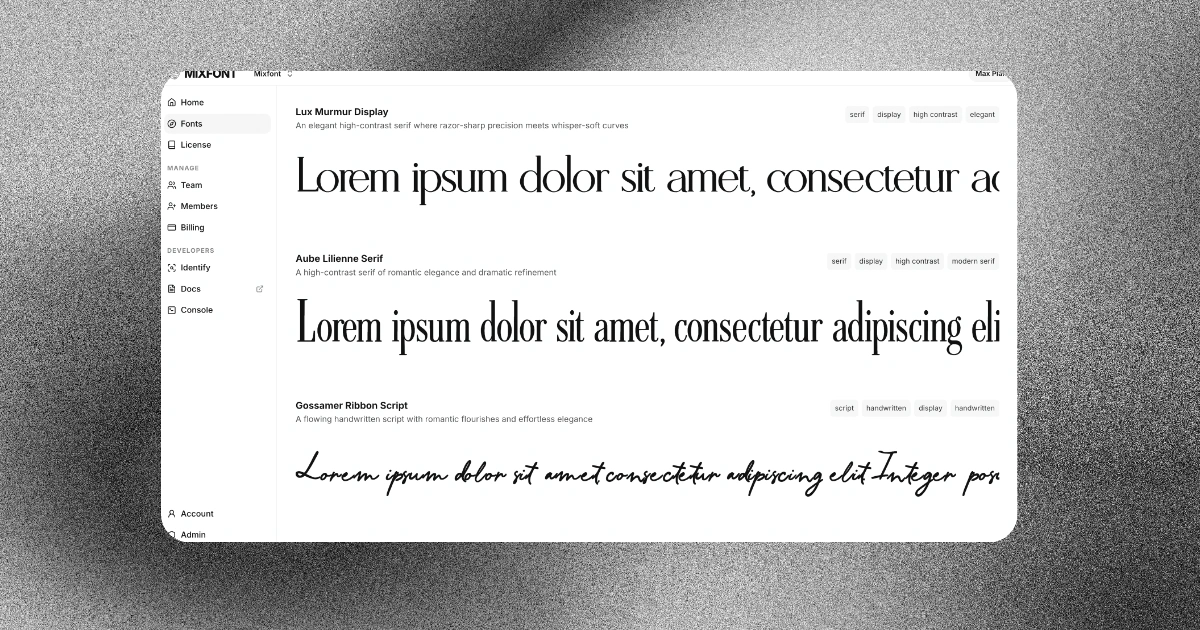
Each font in this collection is completely novel and was generated by users of Mixfont, who used our font generation model to create and publish their own custom fonts. We're now publishing a set of these fonts for anyone to use for free.
About the collection
The collection contains a wide variety of fonts in different styles, including serif, sans-serif, display, and more. Many of them are designed to be bold and useful for headlines, posters, and other types of display use cases.
Here are some of my personal favorites:
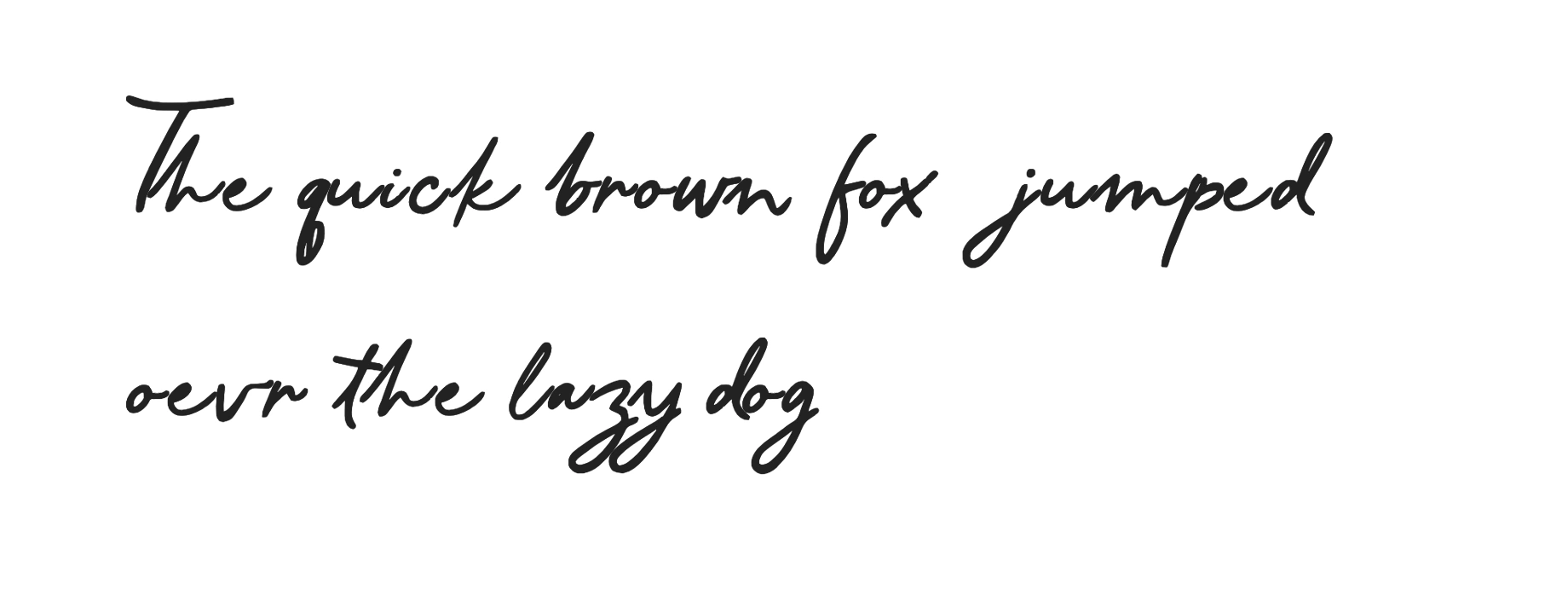
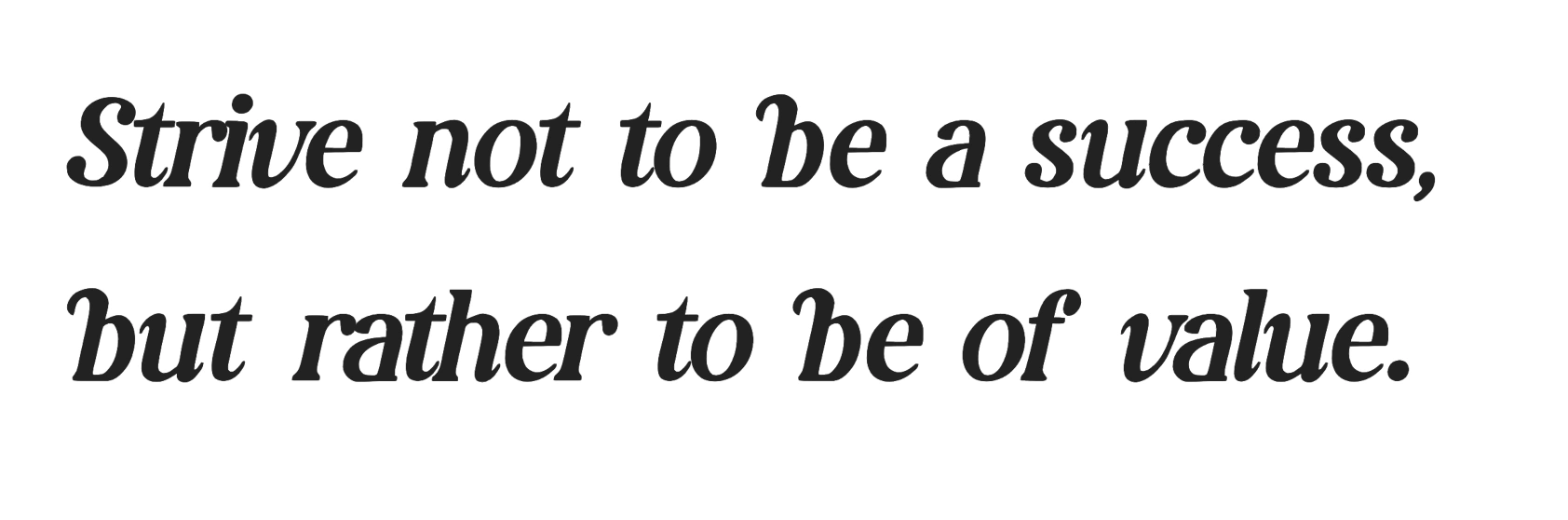
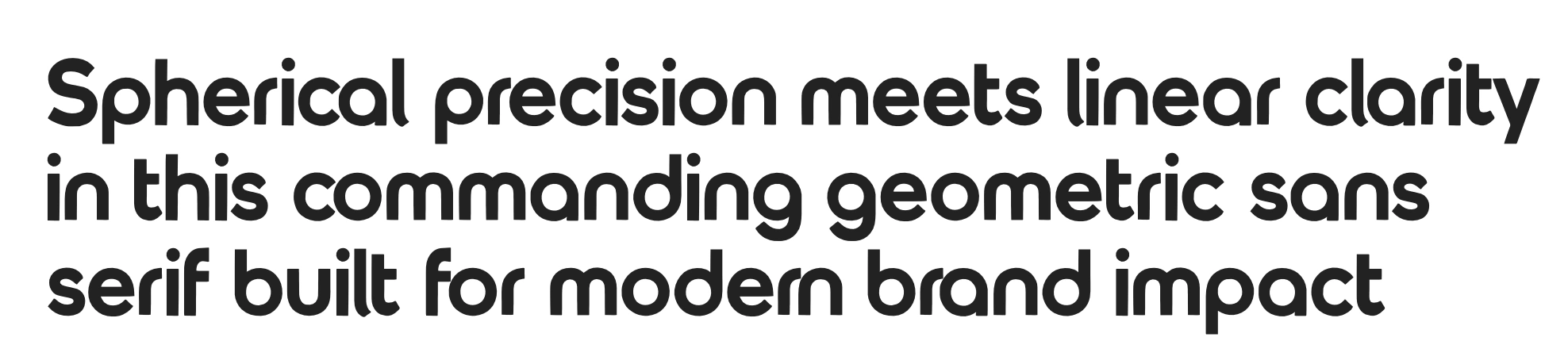
There's a lot of variety in the collection, so you should be able to find something that fits any type of project. And in the case that the results aren't perfect, you can always use Mixfont's AI font generator to create your own font exactly in the style that you need.
Users can browse the collection by searching for a specific font name, or filtering the results by different styles, weights, and other attributes. Each font also has its own detail page where you can see more information about the font, test it out with custom text, and download the TTF file.
How the fonts were created
Our font generation model takes a prompt or an image sample and writes a full TTF font file from that input. This model was trained on a variety of images from across the web and finetuned on open source fonts. We also use a custom pipeline to clean up model output into a downloadable TTF file.
While submitting a prompt, users can specify specific elements of the font, including handwritten styles, specific letterform features, and more. The fonts in the free fonts collection were created in a variety of styles, and we're releasing this collection partly to showcase the results of our work. We hope that you find the fonts useful for your projects.